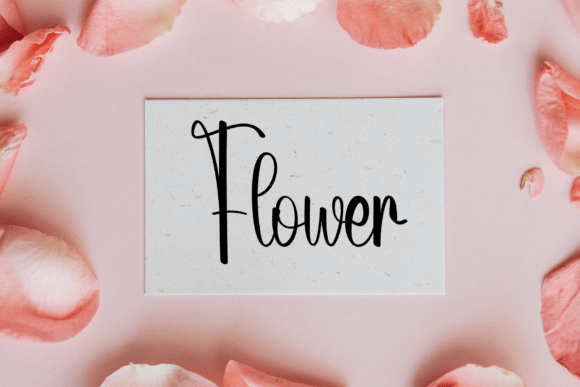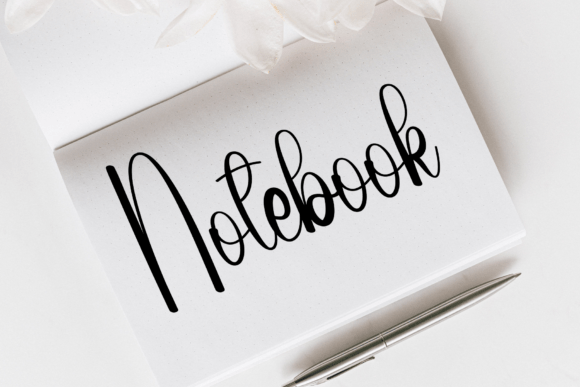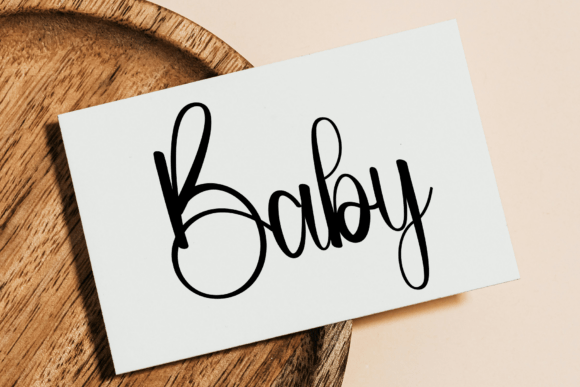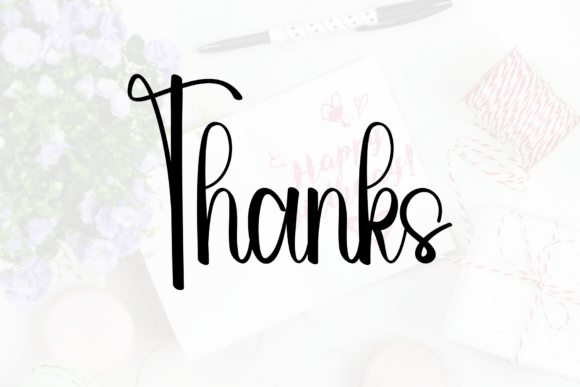
Discover the Charm of Charlote Font: A Sweet and Beautiful Handwritten Font
Are you looking for a font that adds a touch of warmth and coziness to your design projects? Look no further than Charlote Font, a sweet and beautiful handwritten font that is sure to capture your heart. Featuring characters that dance along the baseline, Charlote Font is the perfect addition to any design project, from crafting and scrapbooking to branding and advertising.
The Unique Characteristics of Charlote Font
Charlote Font is a unique and charming handwritten font that boasts a range of distinctive characteristics. The font features characters that are carefully crafted to dance along the baseline, creating a sense of movement and energy. This playful touch adds a whimsical feel to any design project, making it perfect for designers and crafters who want to add a personal touch to their work.
One of the standout features of Charlote Font is its sweet and elegant appearance. The font is designed to be highly legible, making it perfect for use in a variety of design projects, from body text to headings and titles. The font is also highly versatile, and can be used in a range of contexts, from formal and professional to informal and playful.
The Benefits of Using Charlote Font
So why choose Charlote Font for your design projects? Here are just a few of the benefits of using this beautiful handwritten font:
- Adds a touch of warmth and coziness: Charlote Font is the perfect way to add a warm and inviting touch to your design projects. The font’s playful and whimsical feel makes it perfect for designers and crafters who want to create a sense of comfort and approachability.
- Highly legible: Despite its playful appearance, Charlote Font is highly legible, making it perfect for use in body text and other applications where clarity is key.
- Highly versatile: Charlote Font can be used in a range of contexts, from formal and professional to informal and playful. This makes it a great choice for designers and crafters who want a font that can adapt to different design needs.
- Easily pairs with other fonts: Charlote Font pairs beautifully with other fonts, making it easy to create stunning and effective design combinations.
Using Charlote Font in Your Design Projects
So how can you use Charlote Font in your design projects? Here are a few ideas to get you started:
- Crafting and scrapbooking: Charlote Font is a perfect choice for crafting and scrapbooking projects, where a personal and whimsical touch is often desired.
- Branding and advertising: The font’s sweet and elegant appearance makes it a great choice for branding and advertising projects, where a professional and approachable image is key.
- Stationery and invitations: Charlote Font is a beautiful choice for stationery and invitation design, where a personal and handwritten touch is often desired.
- Digital design: The font is also perfect for digital design projects, such as social media graphics, blog posts, and website design.
Tips for Getting the Most Out of Charlote Font
Here are a few tips for getting the most out of Charlote Font:
- Experiment with different colors and textures: Charlote Font looks beautiful in a range of colors and textures, so don’t be afraid to experiment and find the perfect combination for your design project.
- Pair with other fonts: Charlote Font pairs beautifully with other fonts, so try combining it with different fonts to create stunning and effective design combinations.
- Use it for headings and titles: The font’s sweet and elegant appearance makes it perfect for use in headings and titles, where a touch of personality and whimsy is desired.
In conclusion, Charlote Font is a sweet and beautiful handwritten font that is sure to add a touch of warmth and coziness to any design project. With its unique characteristics, highly legible appearance, and highly versatile nature, Charlote Font is the perfect choice for designers and crafters who want to create stunning and effective designs. So why not give Charlote Font a try today and see the difference it can make in your design projects?